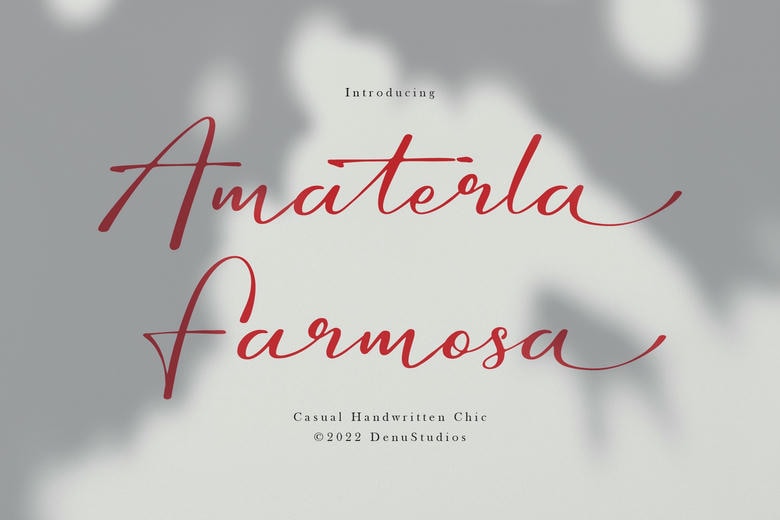
Amaterla Farmosa Font
Amaterla Farmosa is a casual handwritten, chic font from Denustudios. It works well for logos, branding, homeware, product packaging, mugs, quotes, posters, shopping bags, t-shirts, book covers, name cards, invitations, greeting cards, labels, photography, watermarks, special events, and any other project that needs a script style.
Amaterla Farmosa Casual Handwritten Font